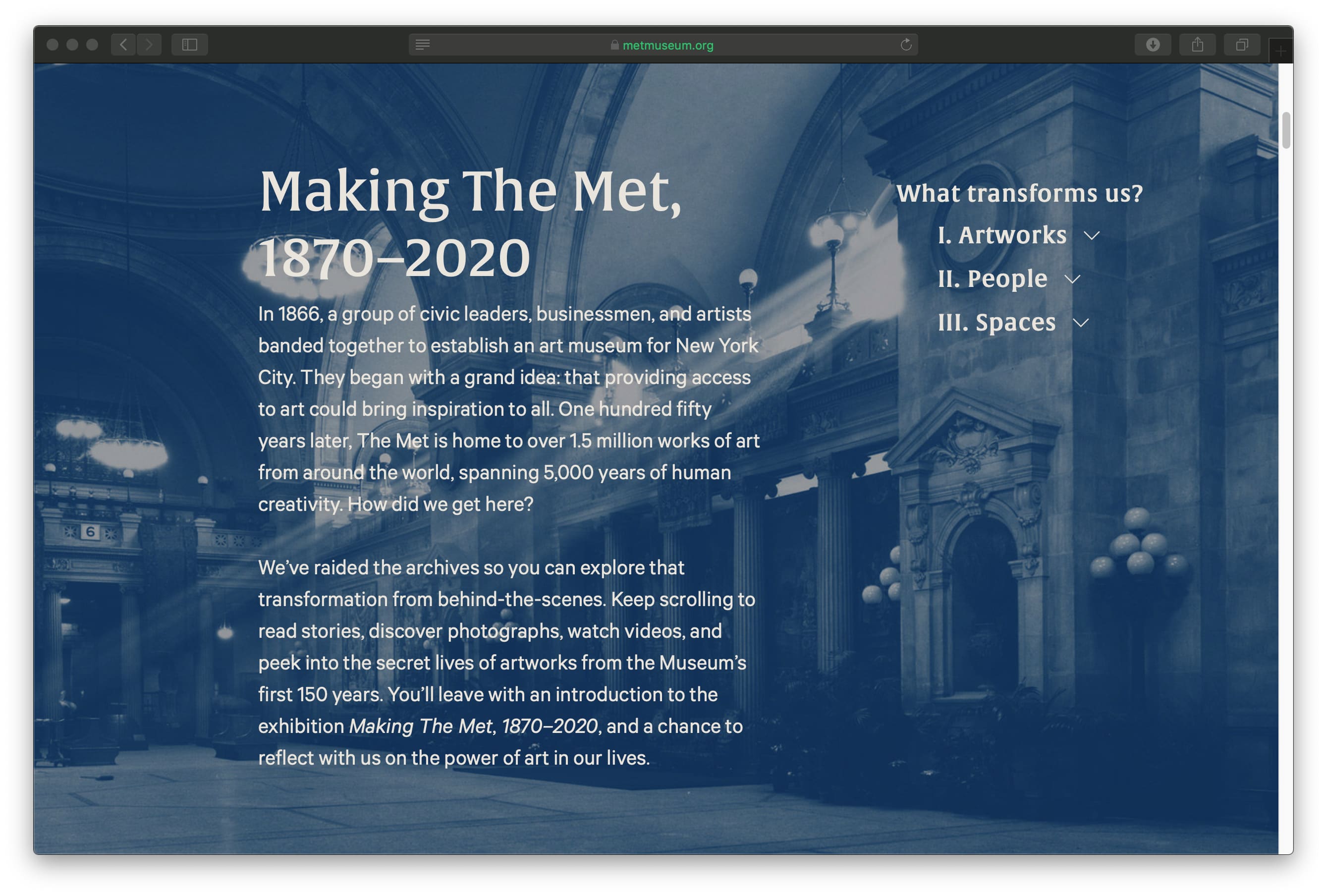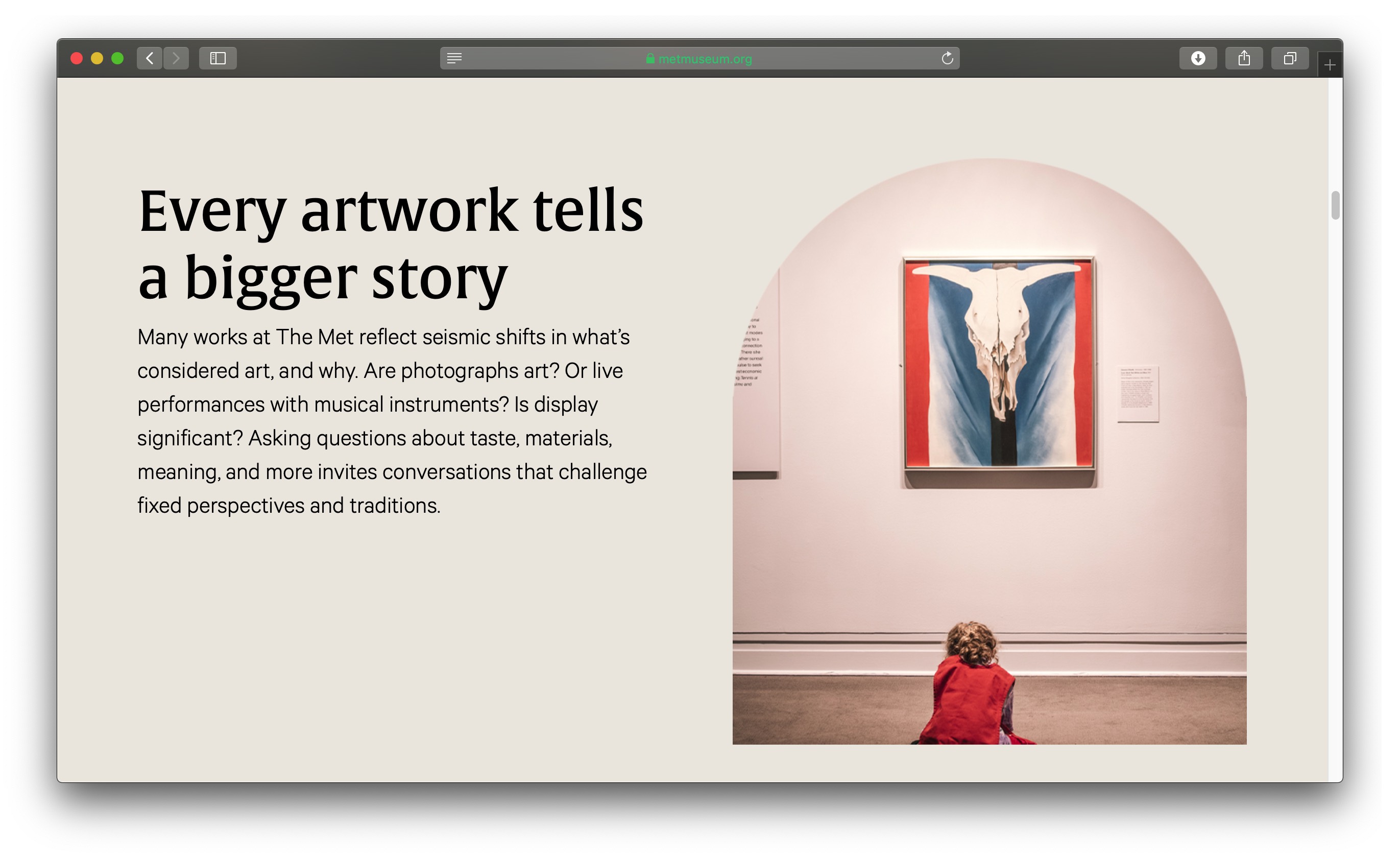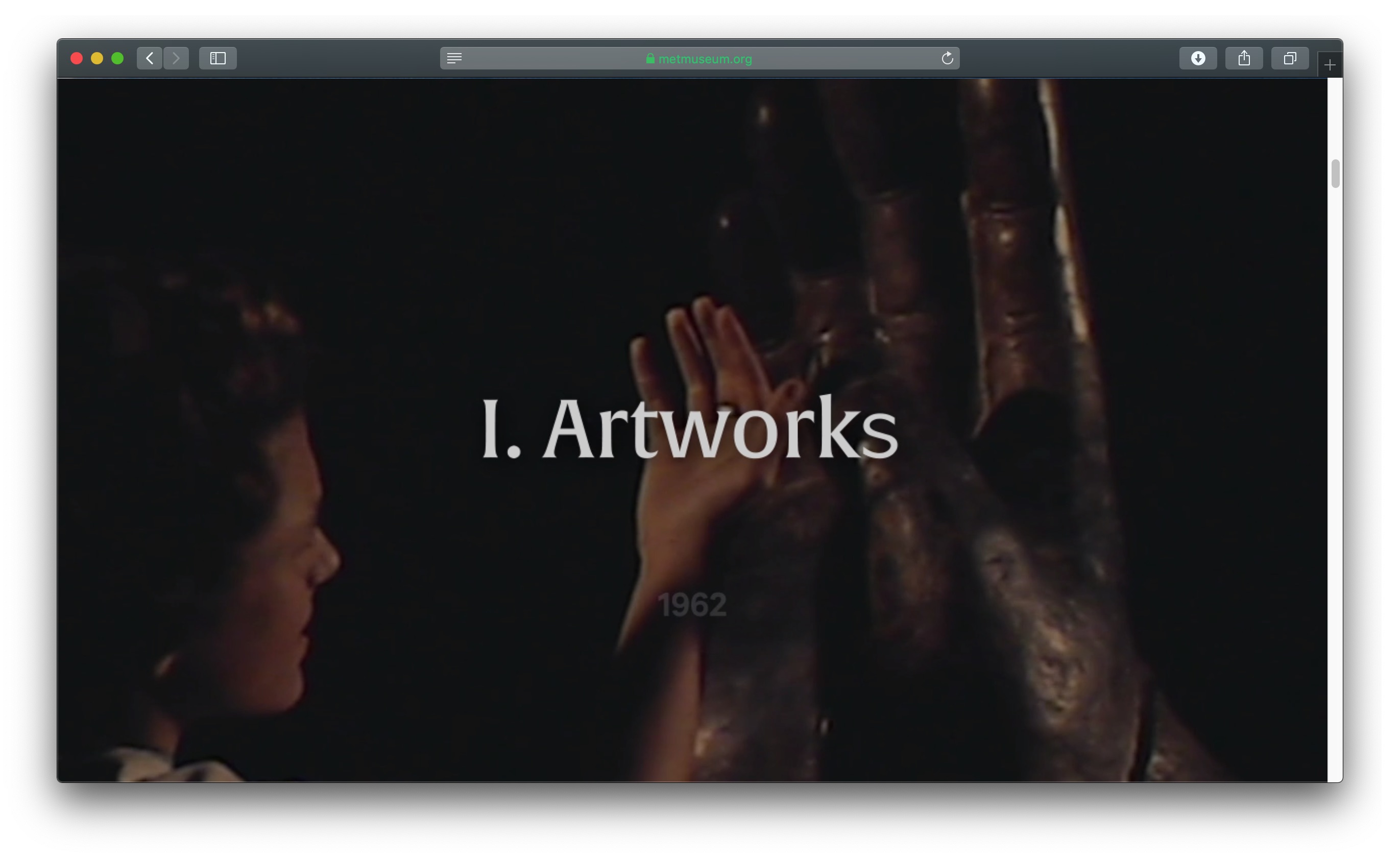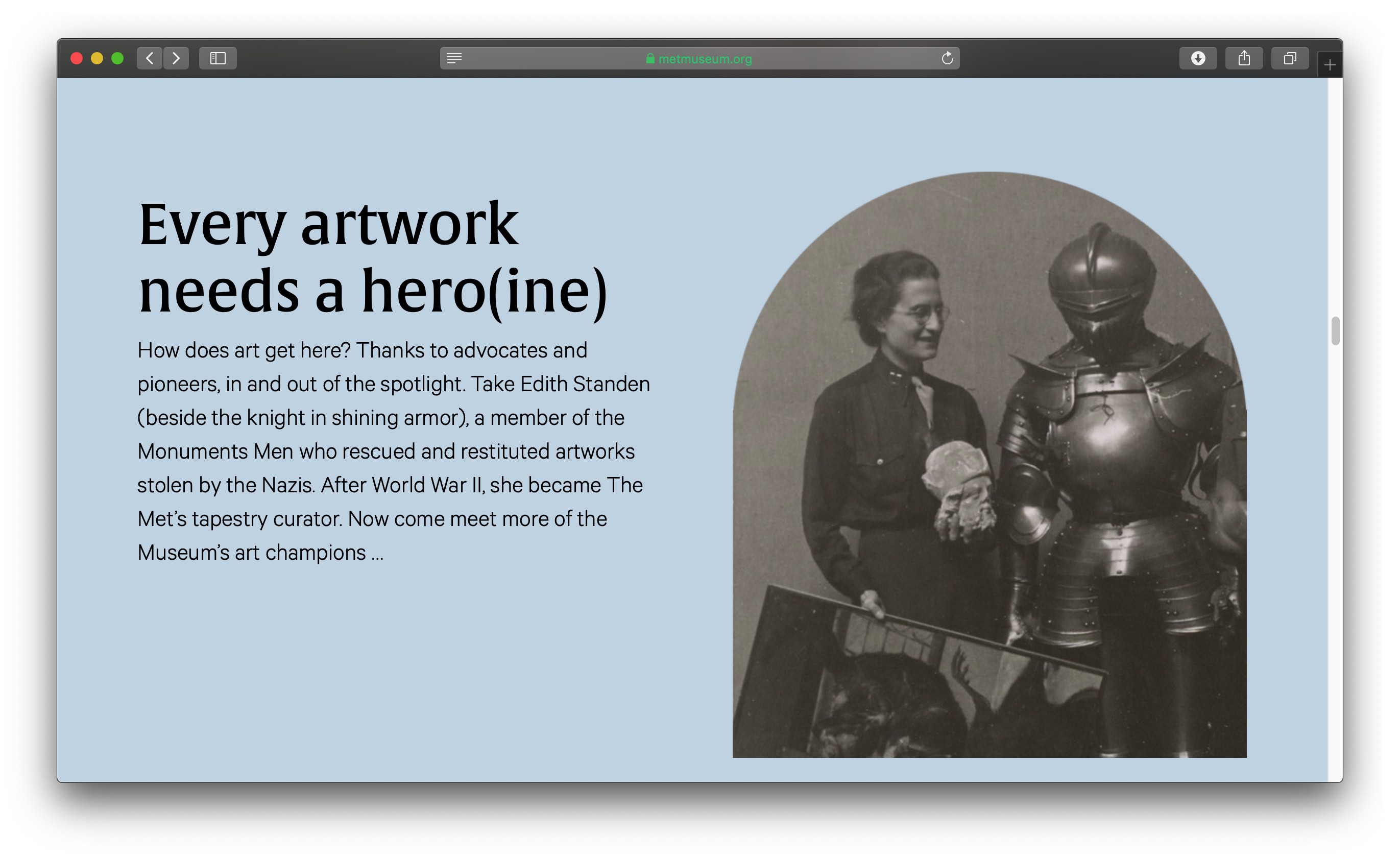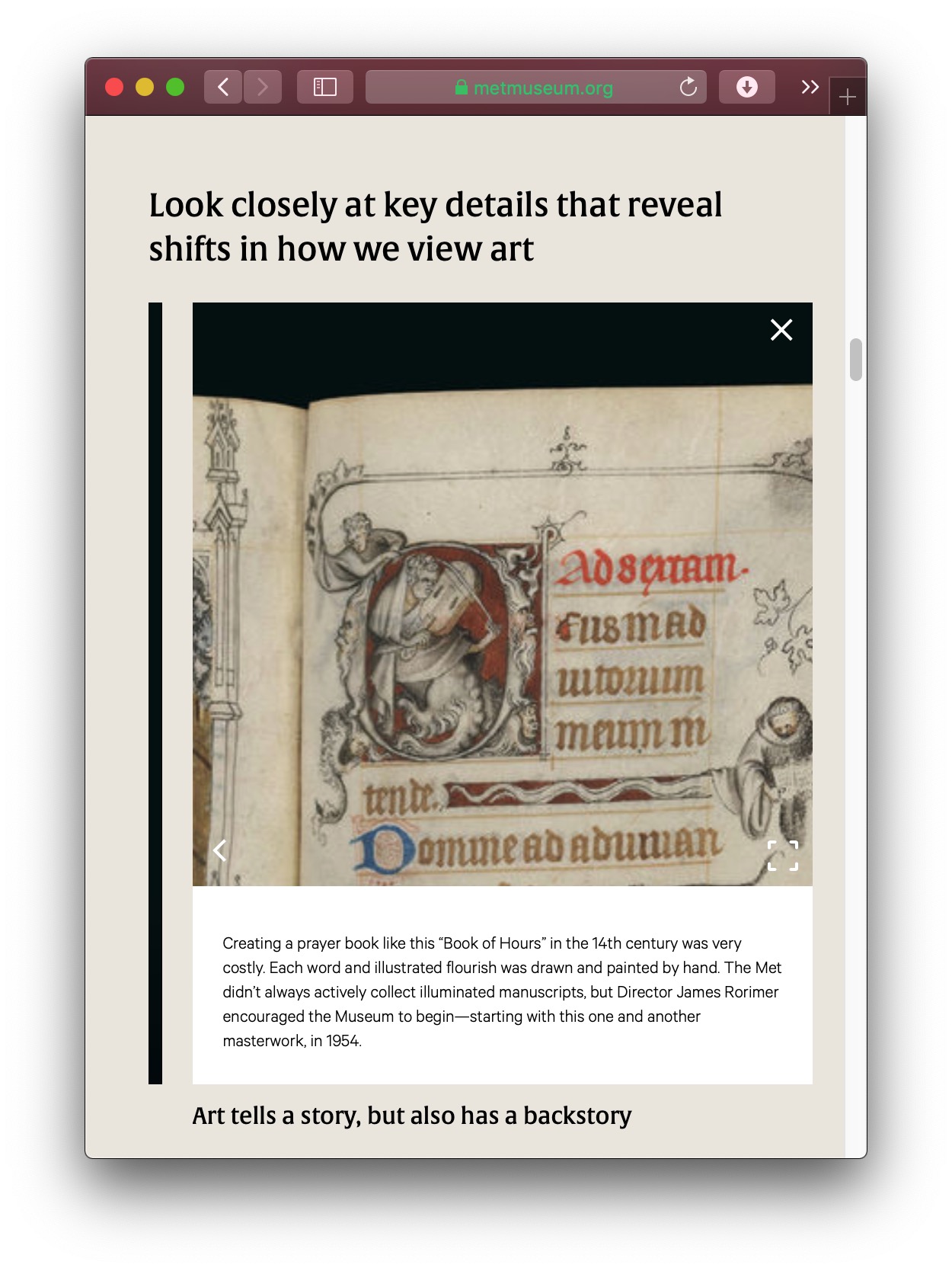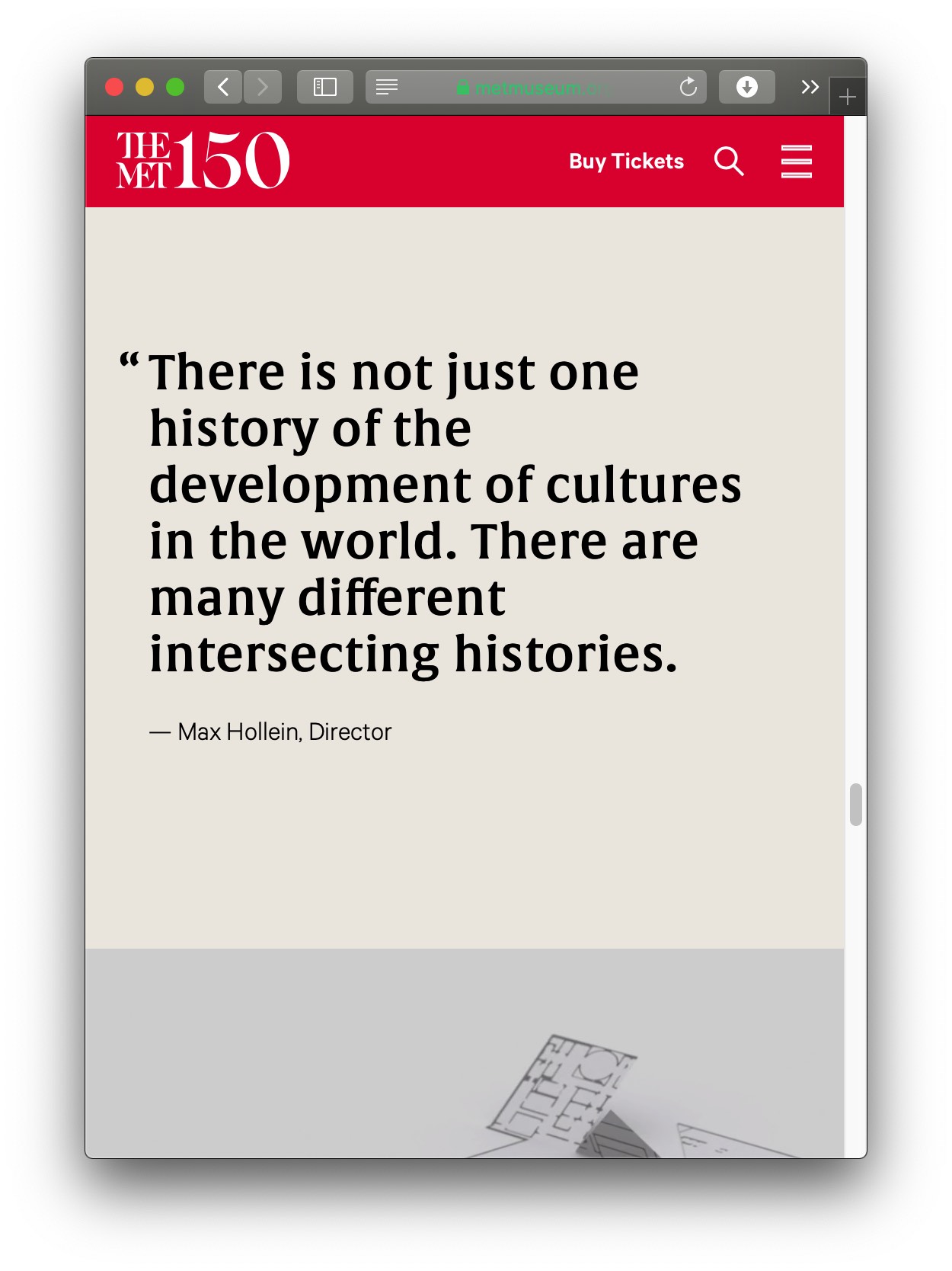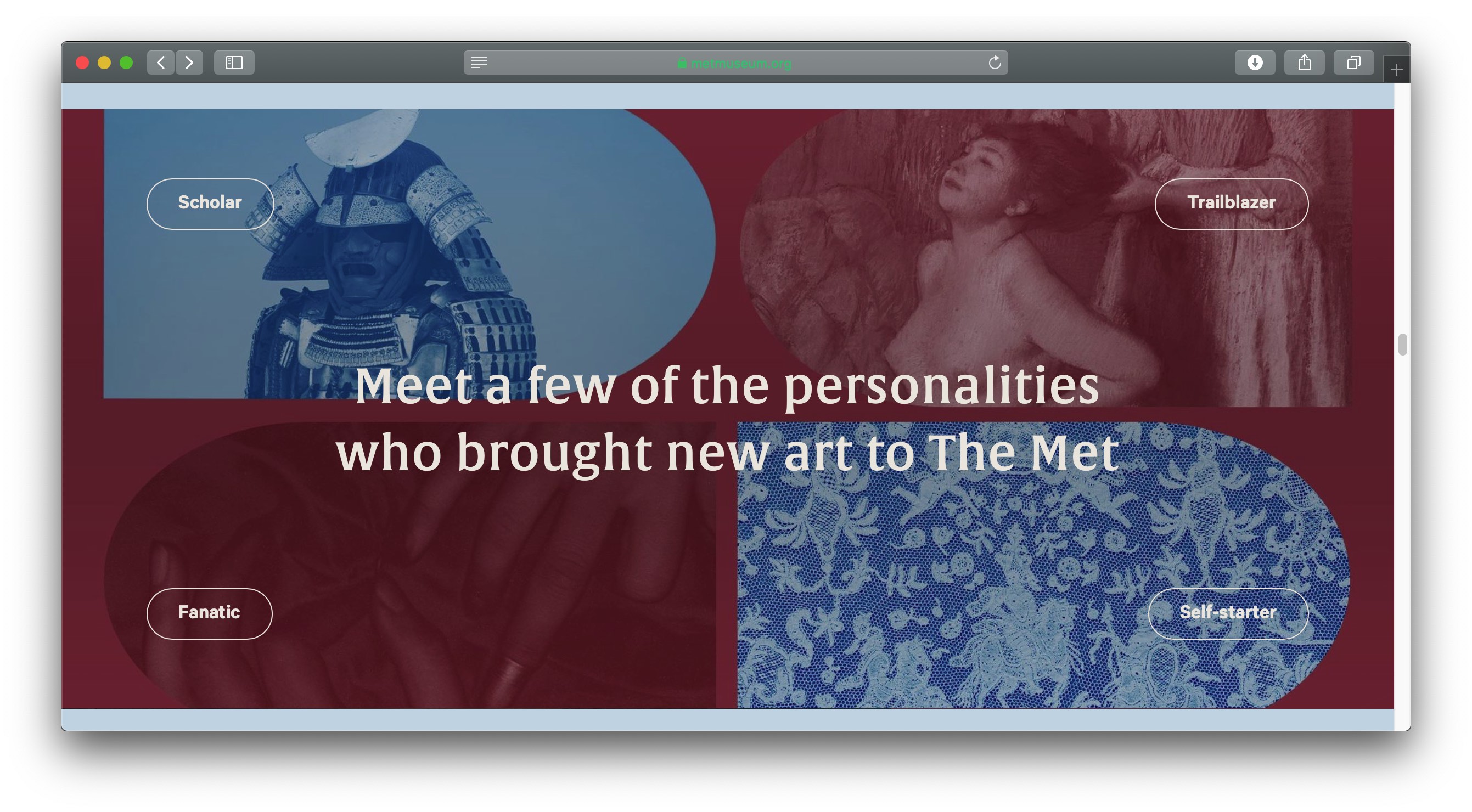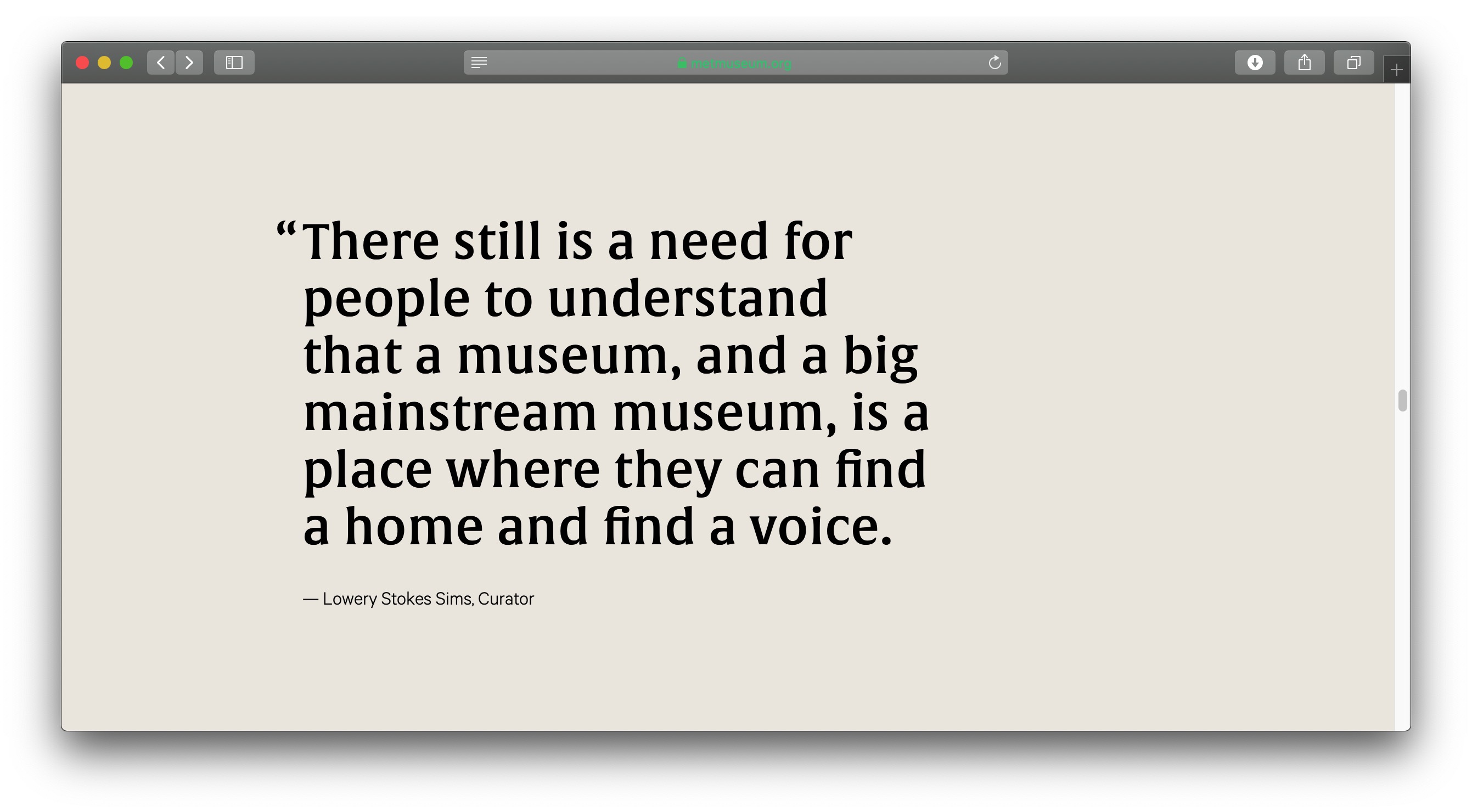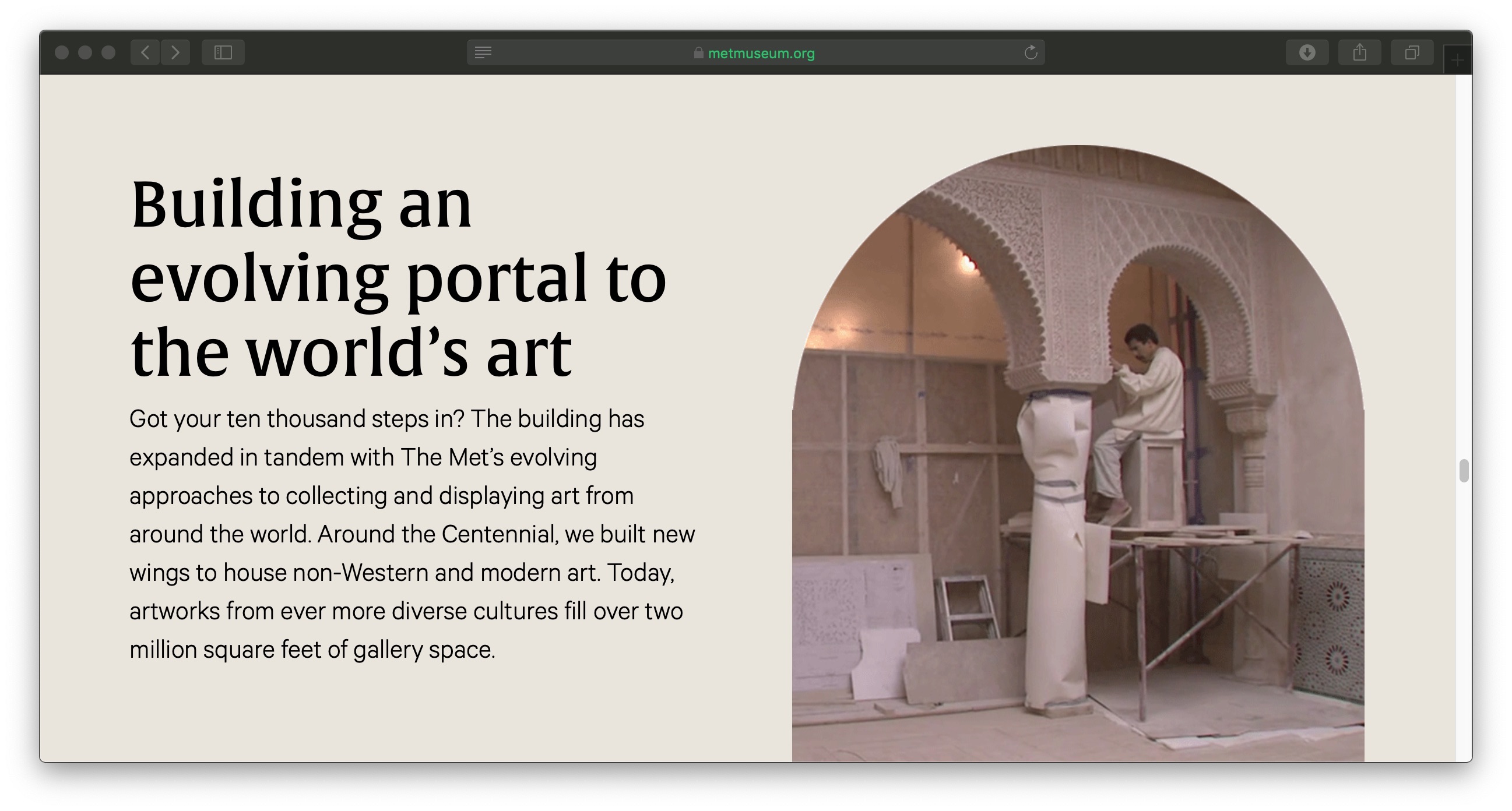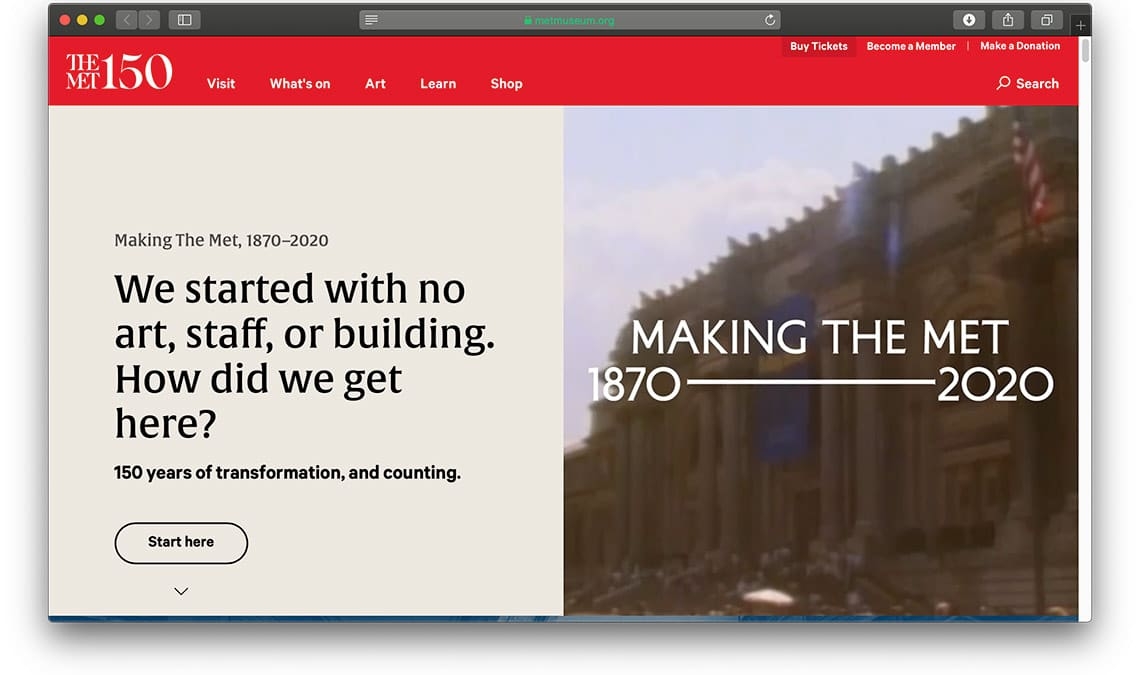
Alverata, Making The Met
The Metropolitan Museum of Art in New York is celebrating its 150th anniversary with an exquisite exhibition and the Alverata typeface on its website!
Making The Met 1870–2020 is the name of current exhibition at The Metropolitan Museum of Art, showing over 250 artworks and mapping the variability of the museum’s collection since its opening in 1870. The bright and well-thought exhibition concept presents an unusual yet pleasant mixture of objects from different historical eras.
The selection for the exhibition website of Gerard Unger’s Alverata, which combines historical influences from Romanesque capitals to Russian Constructivism or De Stijl, can hardly be accidental.
It is a pure pleasure to see Alverata in use in such an elegant and smart way — and in such good company!